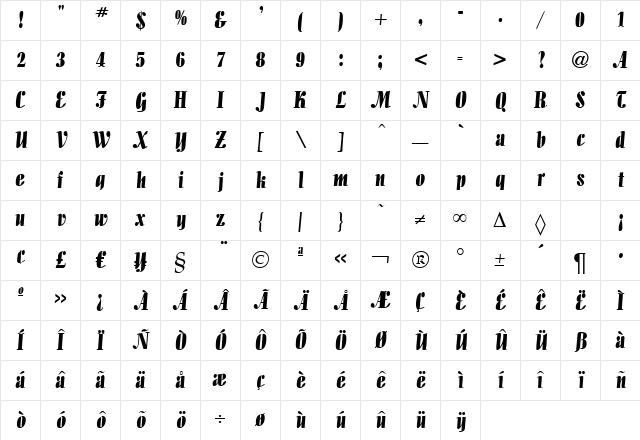
Alligator Regular
Design Context for Alligator
Alligator is a composed and adaptable typeface that performs quietly and consistently across a wide range of design contexts.